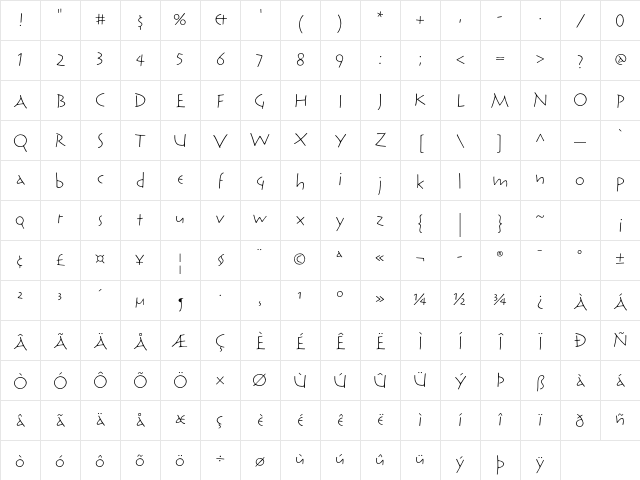
Reliq Std Light ExtraActive
Style: Light ExtraActive
Designer: Carl Crossgrove
Complete Reliq Std Light ExtraActive glyph index. Displaying only characters natively supported by Reliq Std Light ExtraActive font.
Design Context for Reliq Std
Reliq Std is a composed and adaptable typeface that performs quietly and consistently across a wide range of design contexts. Its slender proportions lend an understated elegance to any composition.